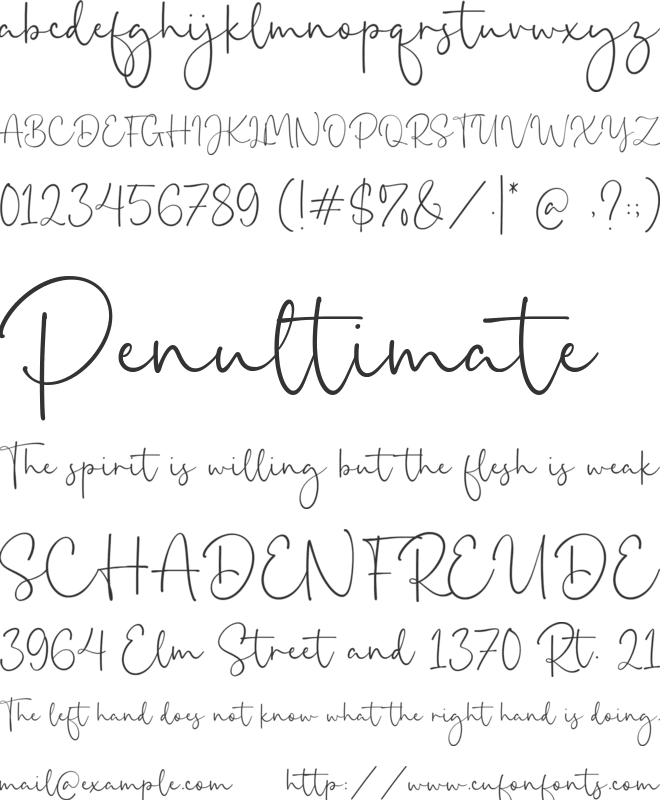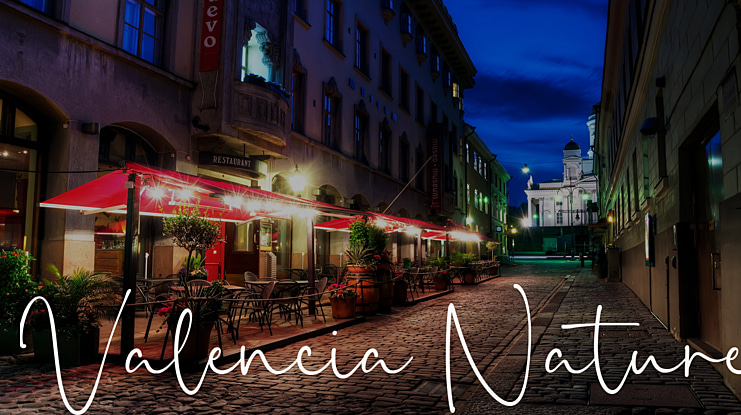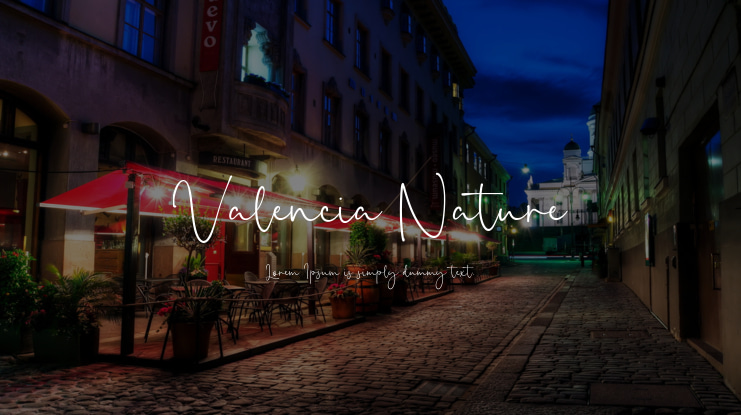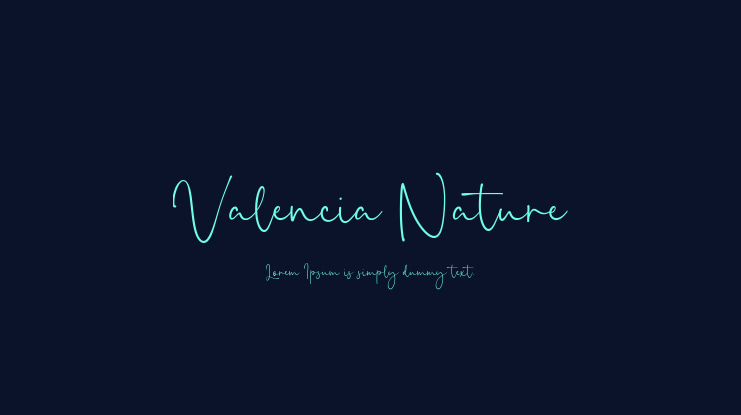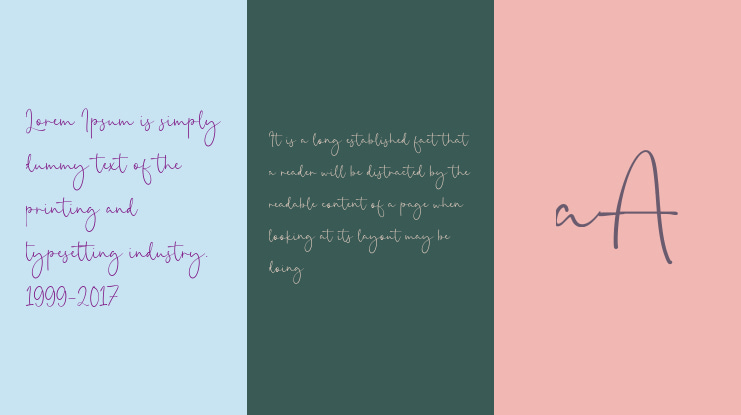
Valencia Nature Font
Introduced by Timur type
Proudly Present Valencia Nature
Valencia Nature is a  Handwritten script font that is modern and fresh, and will bring a warm and inviting feel to your business. Take advantage of the fonts and experience the magic for yourself.
Valencia Nature is perfect for product packaging, branding project, megeenazine, social media, wedding, or just used to express words above the background.
Valencia Nature Font Features premium :
-Full Set of standard alphabet and punctuation
– Valencia Nature also multilingual support.
– Ligature and Swash